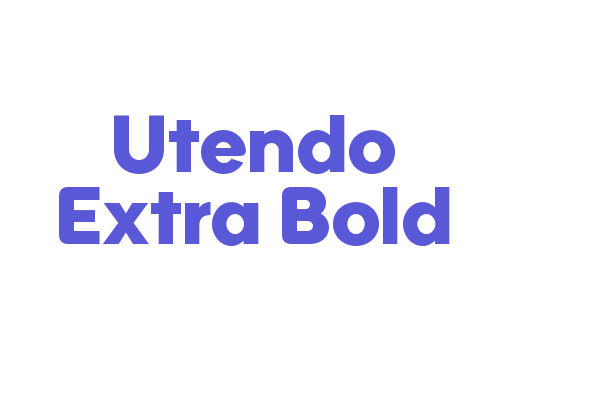
Utendo Extra Bold is a sleek and modern sans-serif font designed by Daniel P. Lyons. With its bold weight and clean lines, this font is perfect for making a strong statement in headlines, logos, and branding materials. The Utendo font family offers a versatile and professional option for projects that require a bold and impactful design.
Font Name: Utendo Extra Bold
Designer: Daniel P. Lyons
Font Family: Utendo ExtBd